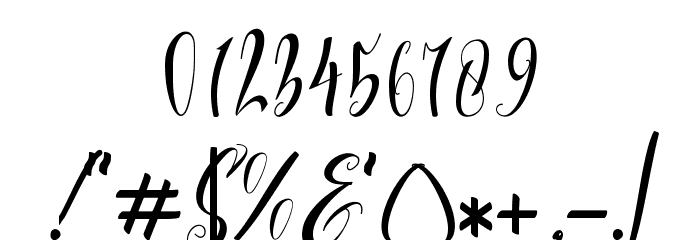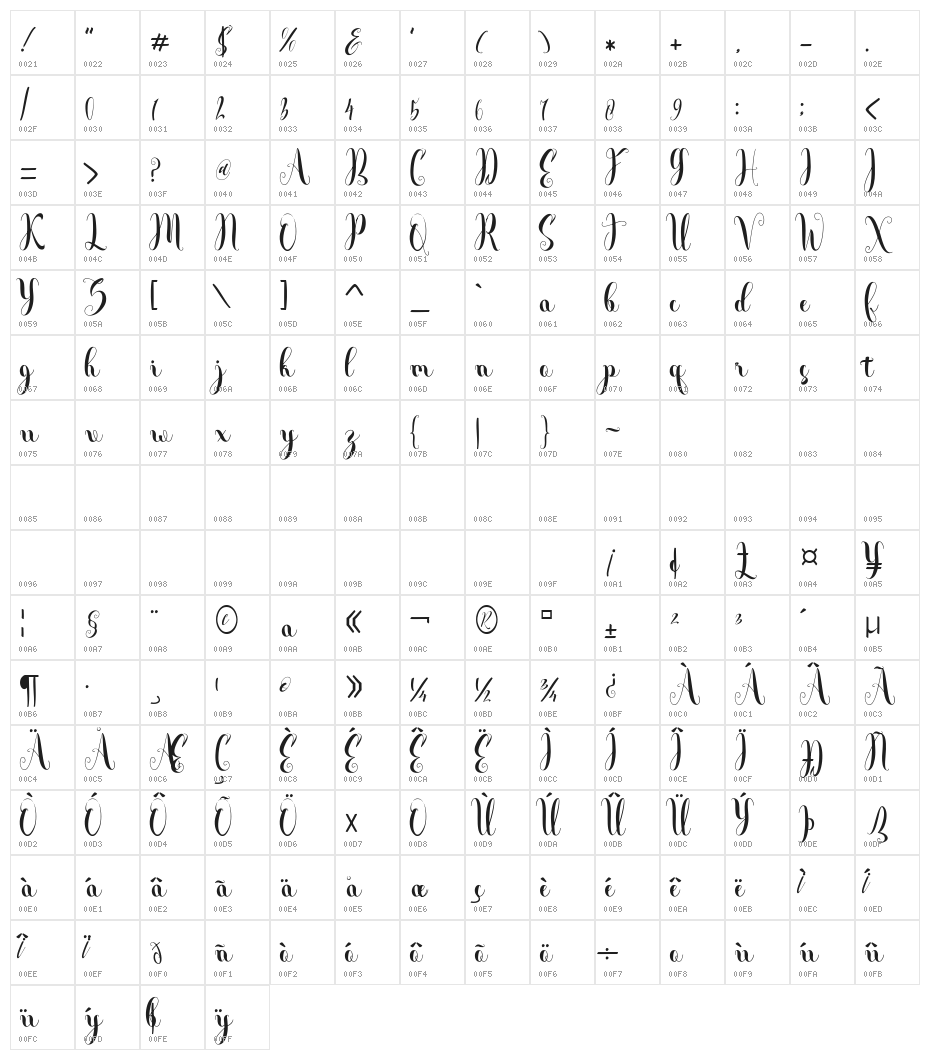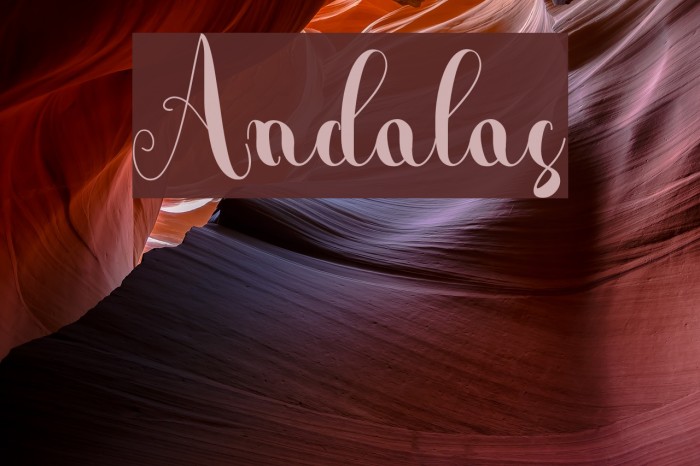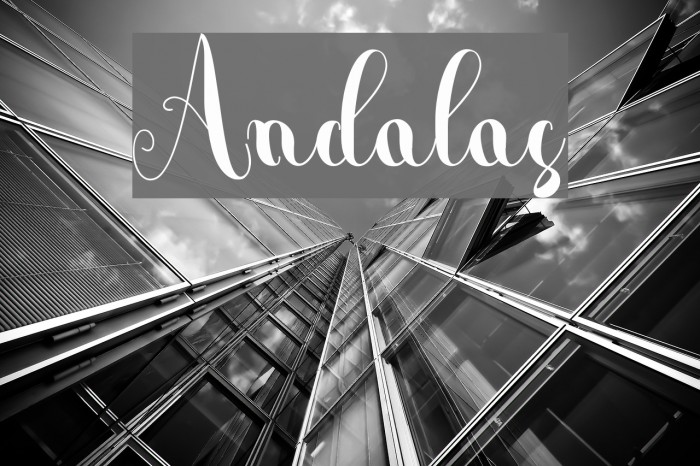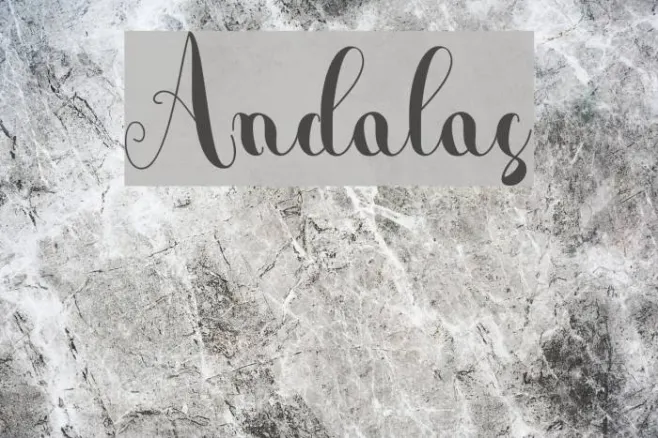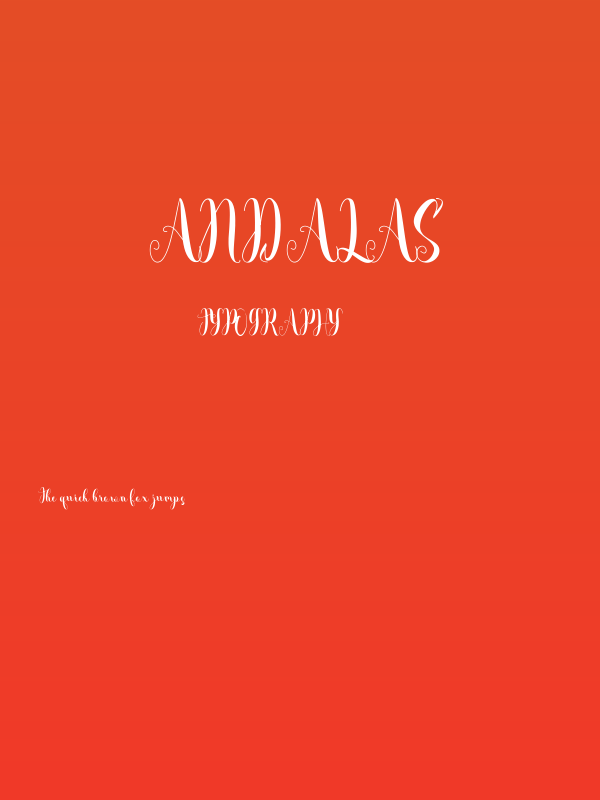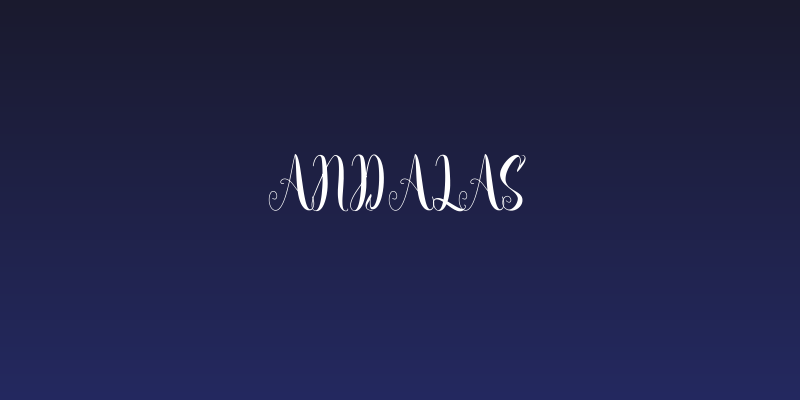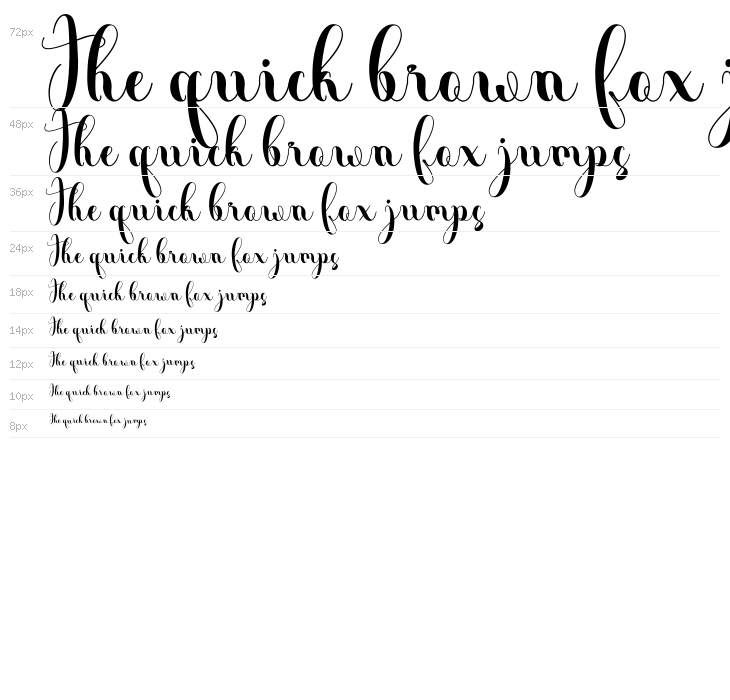
Andalas Font
Andalas Description
This elegant script font features a flowing, cursive style with intricate loops and swirls, giving it a sophisticated and artistic appearance. The uppercase letters are characterized by their tall, slender forms and elaborate flourishes, while the lowercase letters maintain a consistent, smooth flow. The numbers and special characters are designed with the same attention to detail, ensuring a cohesive look across all glyphs. The font's high contrast between thick and thin strokes adds to its dramatic and stylish appeal, making it ideal for projects that require a touch of elegance and flair.
| Proposed Projects | Wedding invitations, luxury branding, elegant packaging, personalized stationery. |